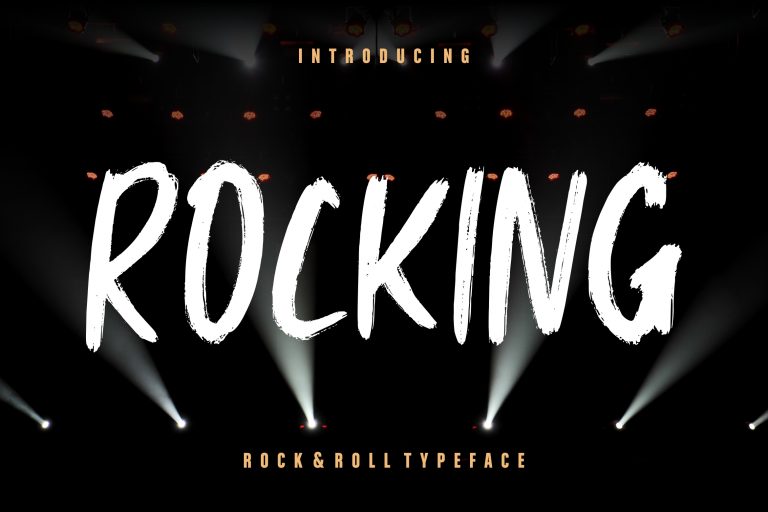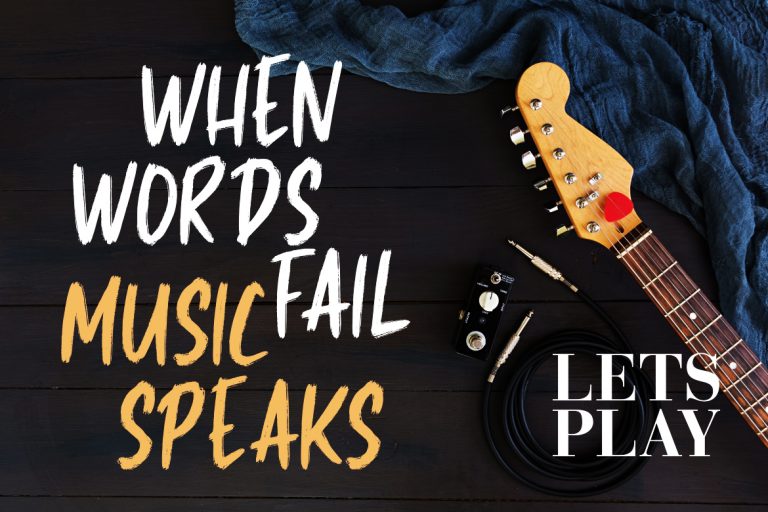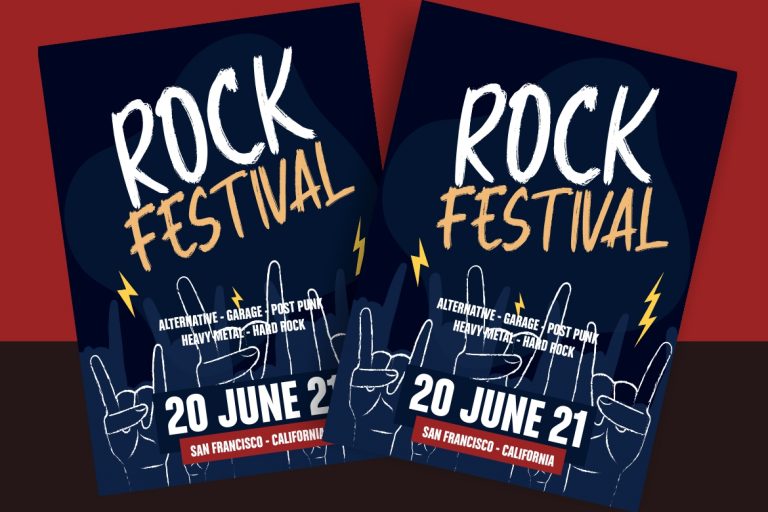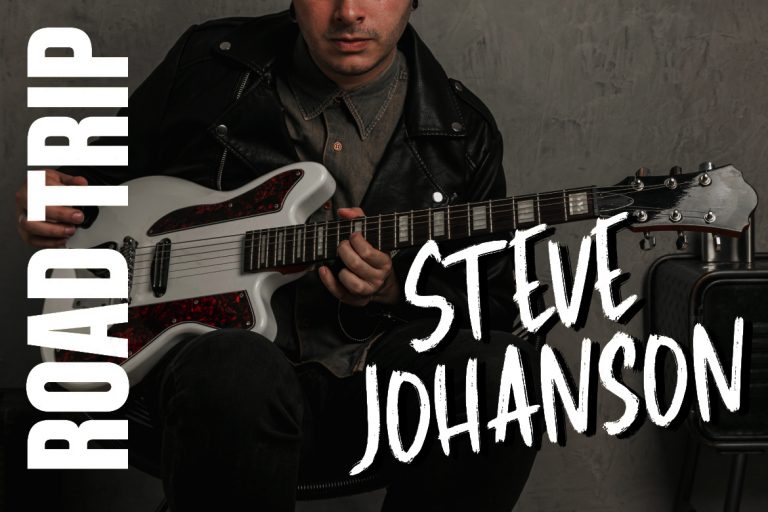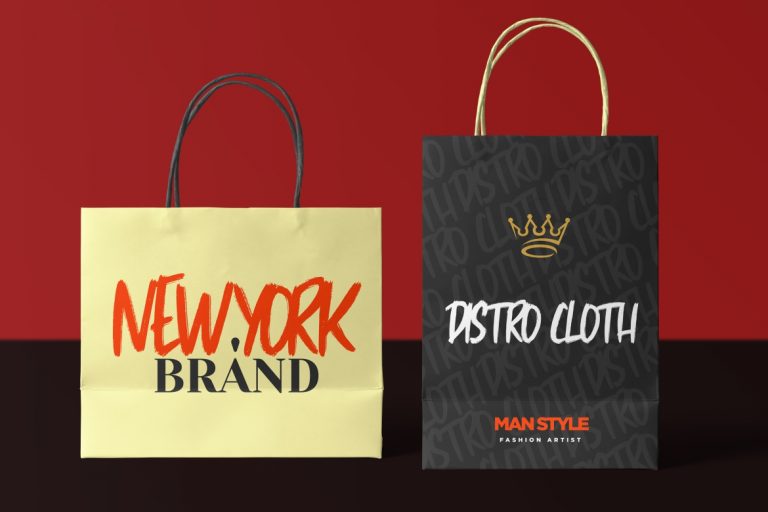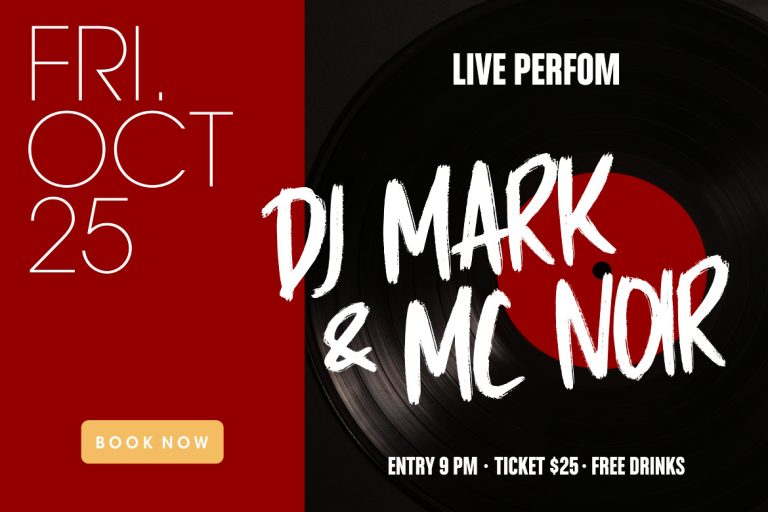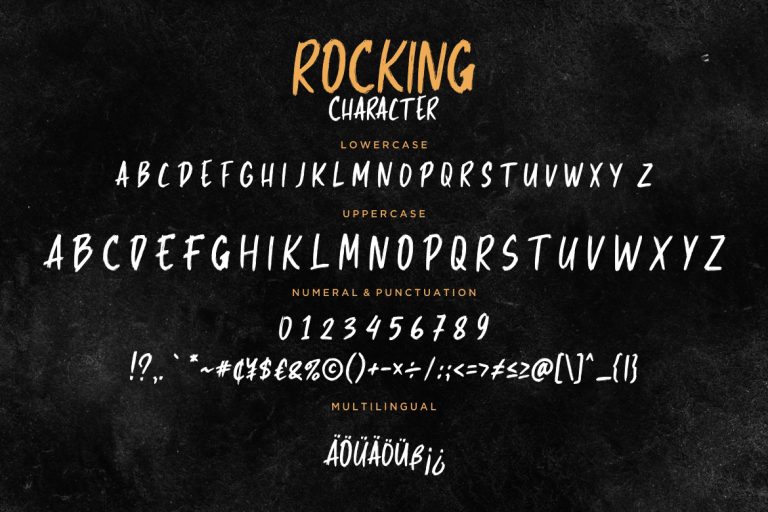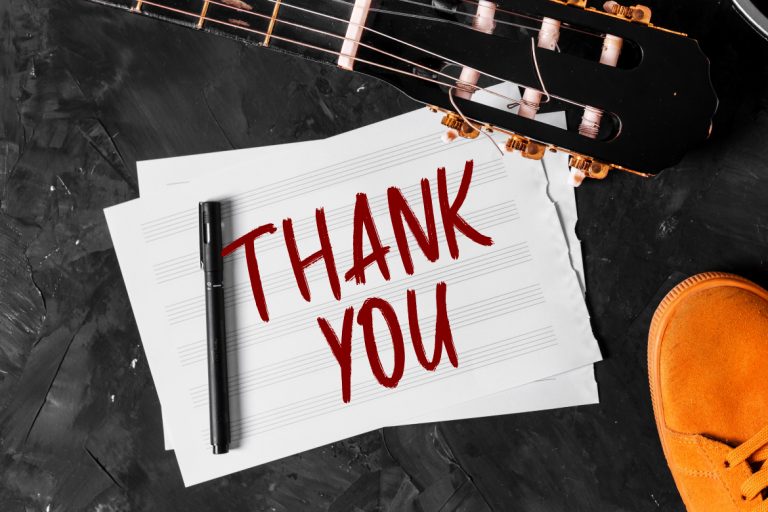
Rocking is a rock and roll typeface with hard brush style which perfect for music heavy metal events.
Rocking is perfect for branding projects, logo, wedding designs, social media posts, advertisements, product packaging, product designs, label, photography, watermark, invitation, stationery and any projects that need handwriting taste.
• Fonts include multilingual support for; ä ö ü Ä Ö Ü ß ¿ ¡
Rocking Rock & Roll Typeface